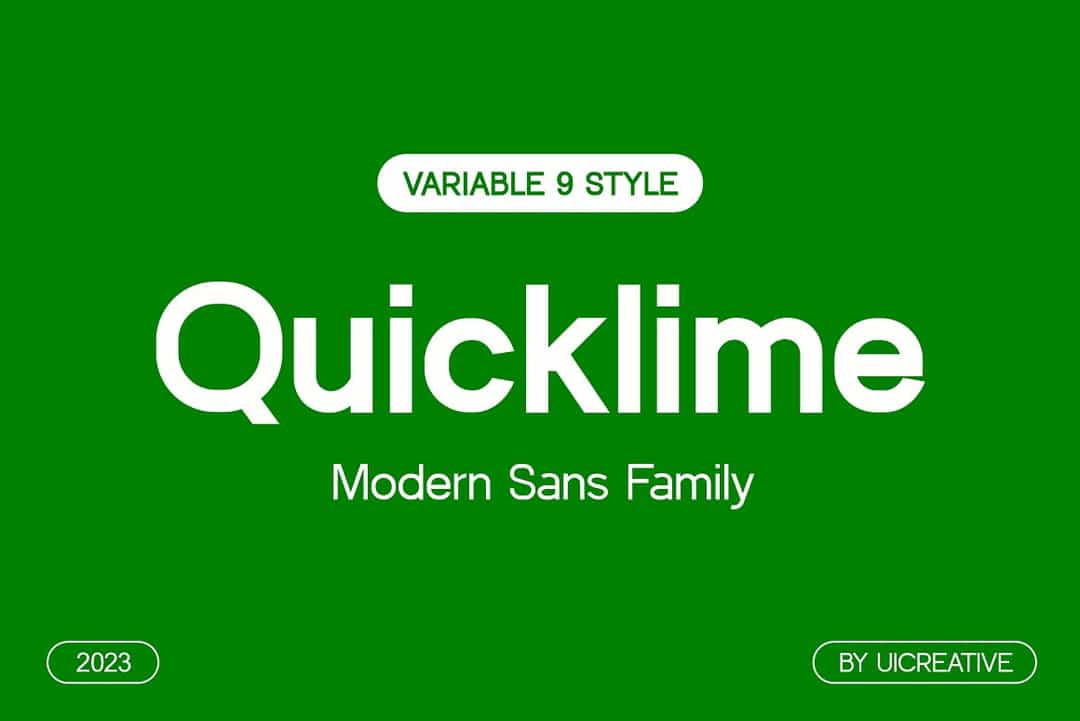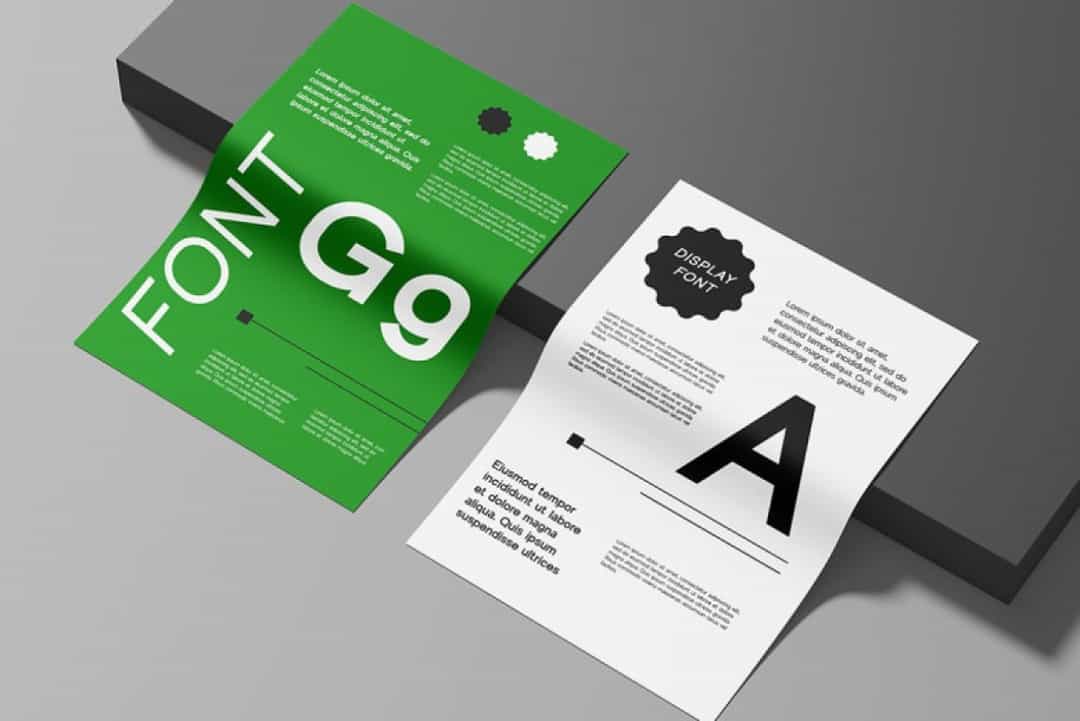
Quicklime Font
Discover Quicklime Font, part of the   Sans Serif collection—a versatile and unique font perfect for adding a personal touch to your projects. Download it for free and enjoy crafting designs with style, from invitations to social media posts. This font is available exclusively for personal use, giving you the freedom to create without limits. Unlock your creativity with Quicklime Font today!
Quicklime can be defined as a modern sans-serif font that exudes elegance and sophistication, perfect for many applications including stationary, signatures, logo weddings, typography quote magazines, book covers, headers for websites, clothing packages, branding – and much more.